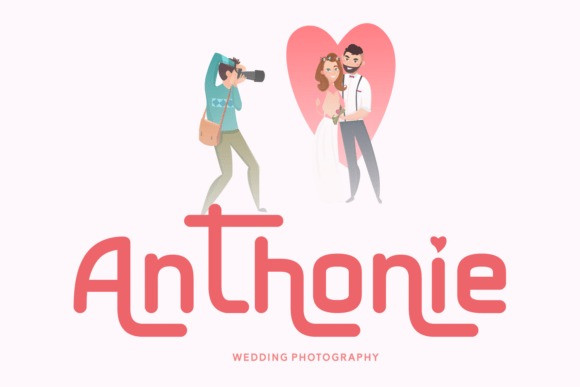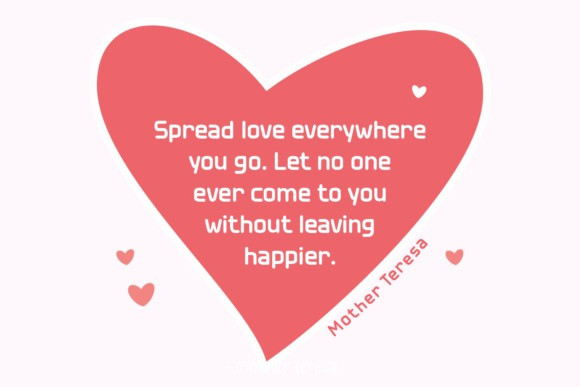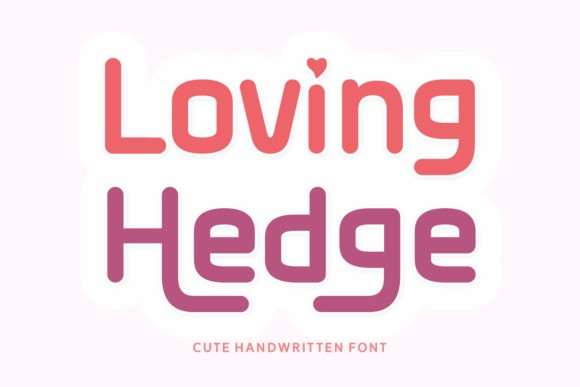
Loving Hedge Font
Loving Hedge, an irresistibly sweet handwritten font. LovingHedge carries the romance of handwritten letters, weaving a beautiful tale that makes it an ideal choice for wedding invitations. Its breezy, heartening silhouette makes it not just a font, but a lettering experience that evokes sentiments, making it perfect for T-shirt designs and sweet displays.
Whimsical yet clean, Loving Hedge is ideal for use in premium designs and book covers, embodying a blend of playful innocence and refined elegance. Designed with a keen eye for detail and supported by multilingual capabilities, LovingHedge is the epitome of quality and versatility, yearning to bring moments to life, one character at a time.